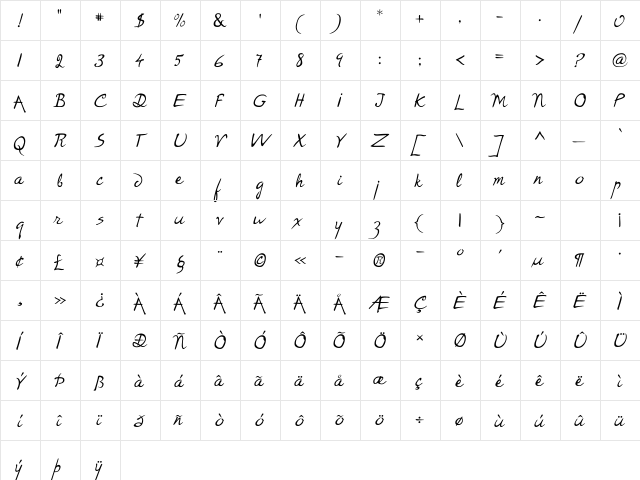
P22 Rodin Regular Regular
Design Context for P22 Rodin Regular Typeface
P22 Rodin Regular is a composed and adaptable typeface that performs quietly and consistently across a wide range of design contexts.